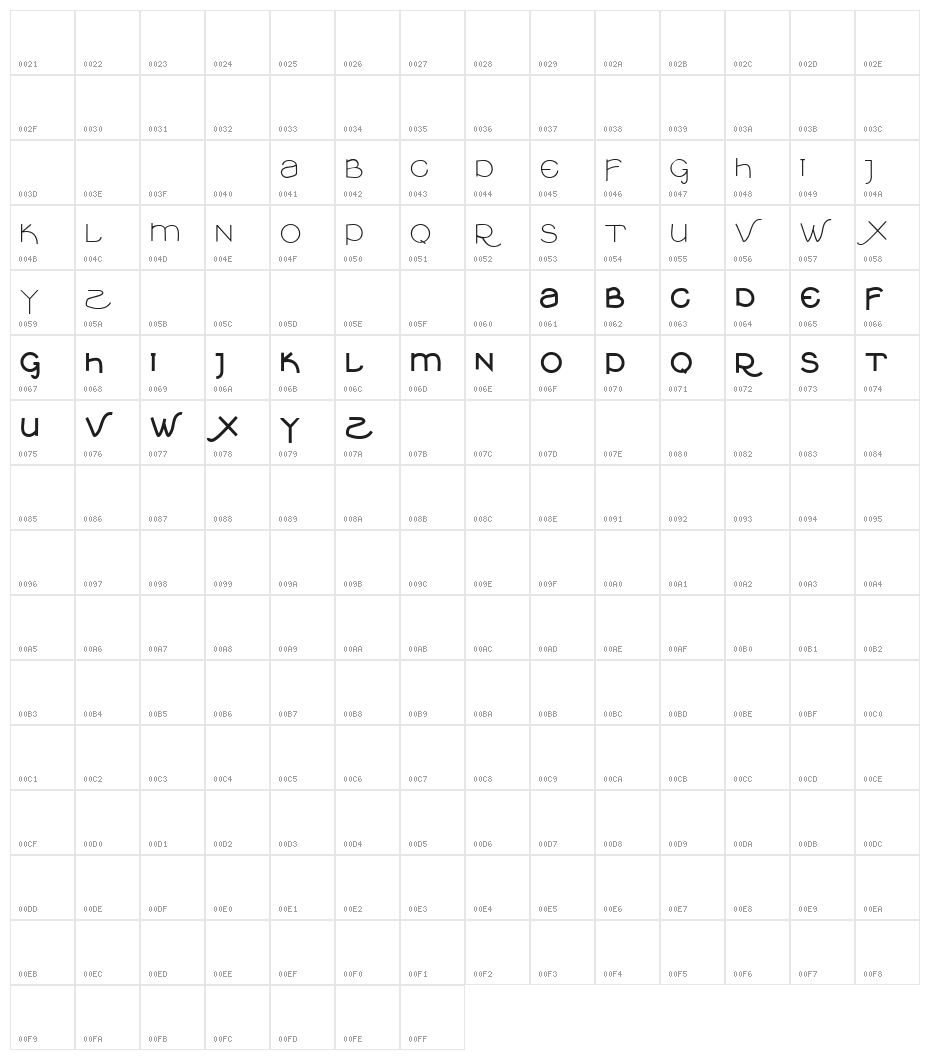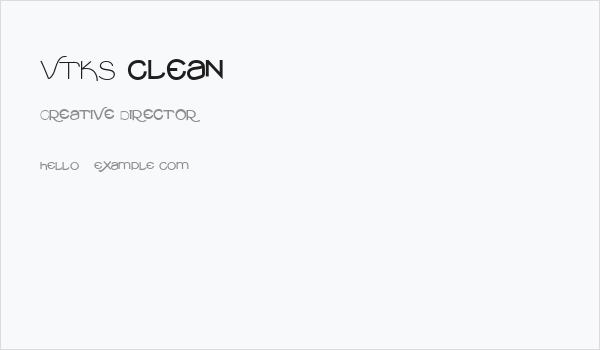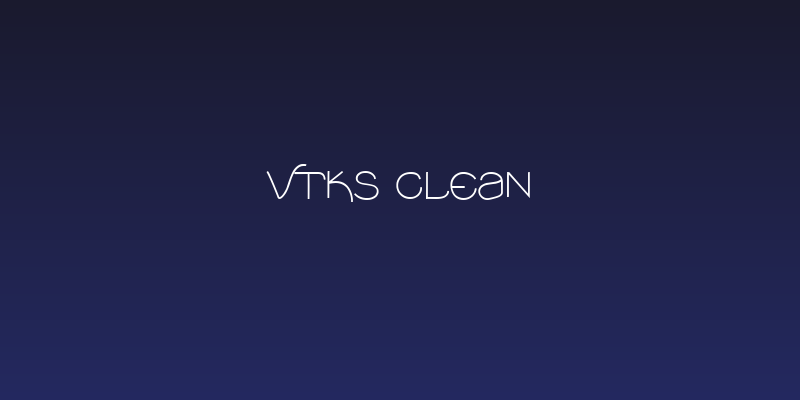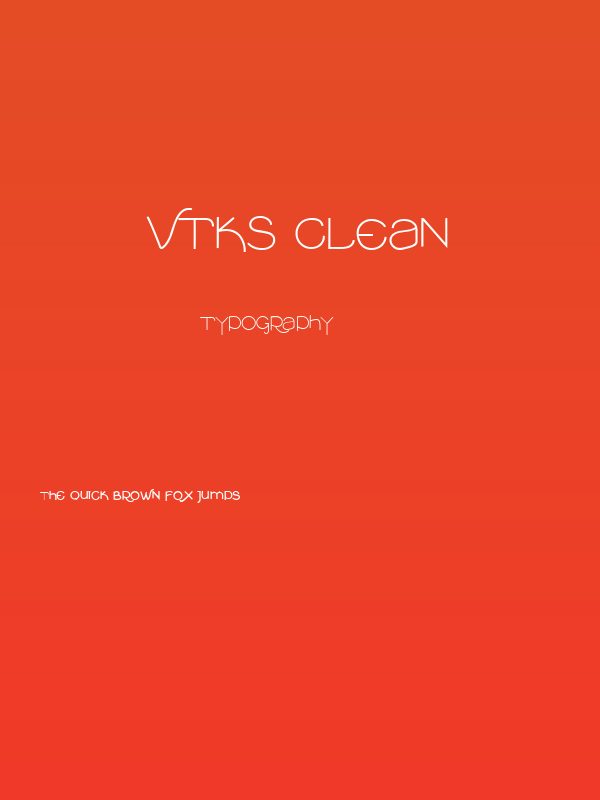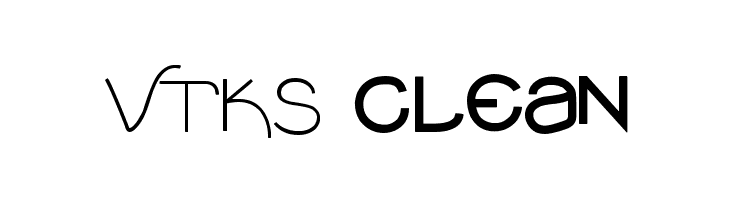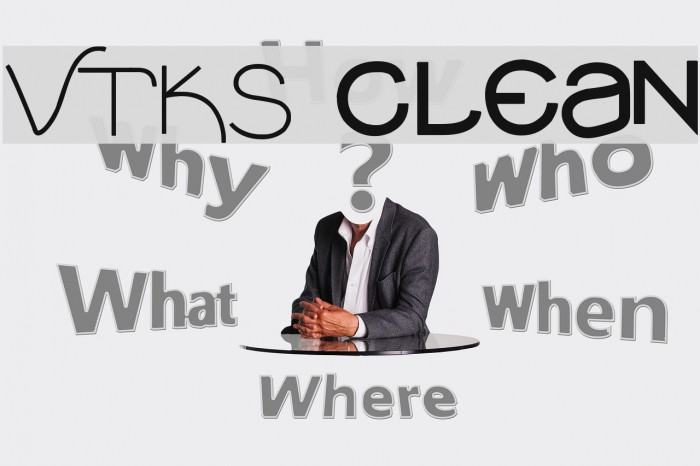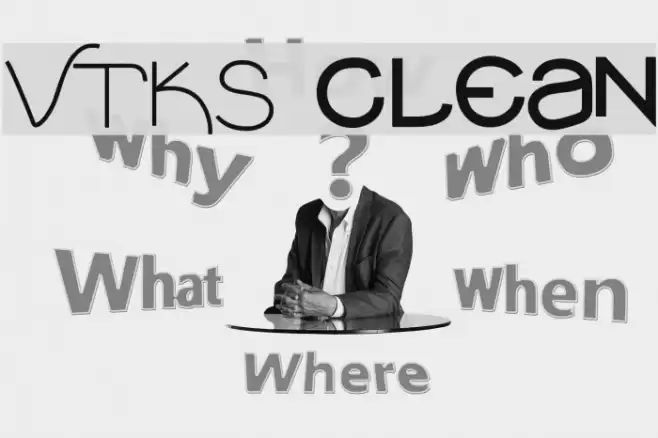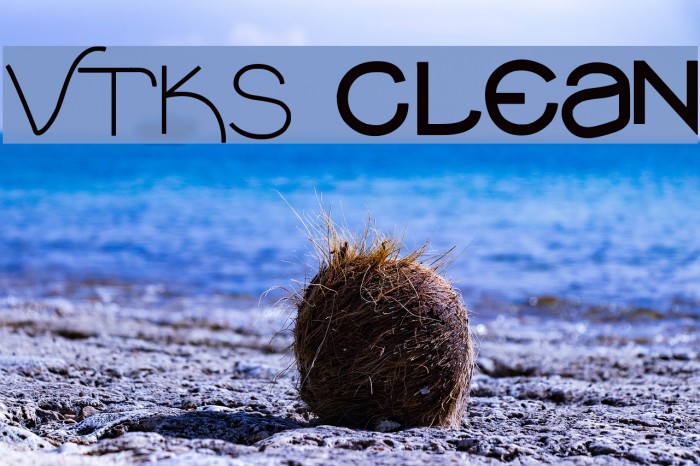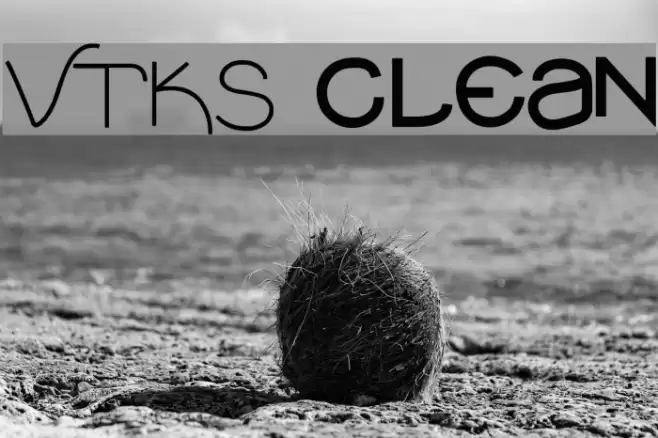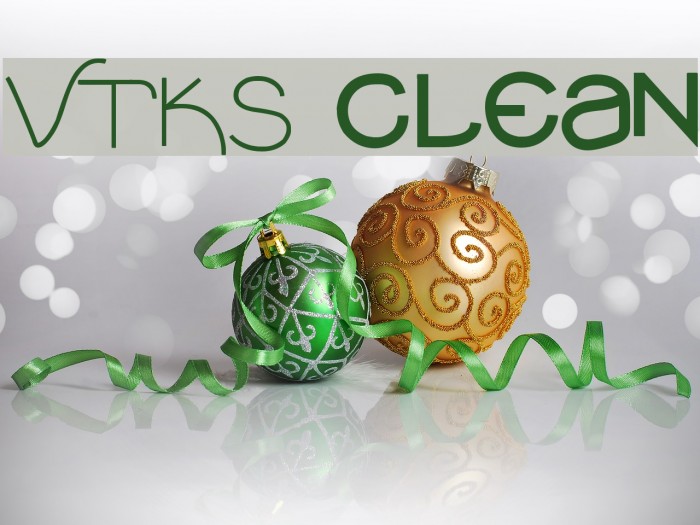
VTKS clean Font
| Gesamtstil | Modern, Decorative |
| Anwendungsfall | Headlines, Logos, Artistic projects |
| Vorgeschlagene Projekte | Ideal for creative projects such as posters, album covers, branding, and artistic logos. |